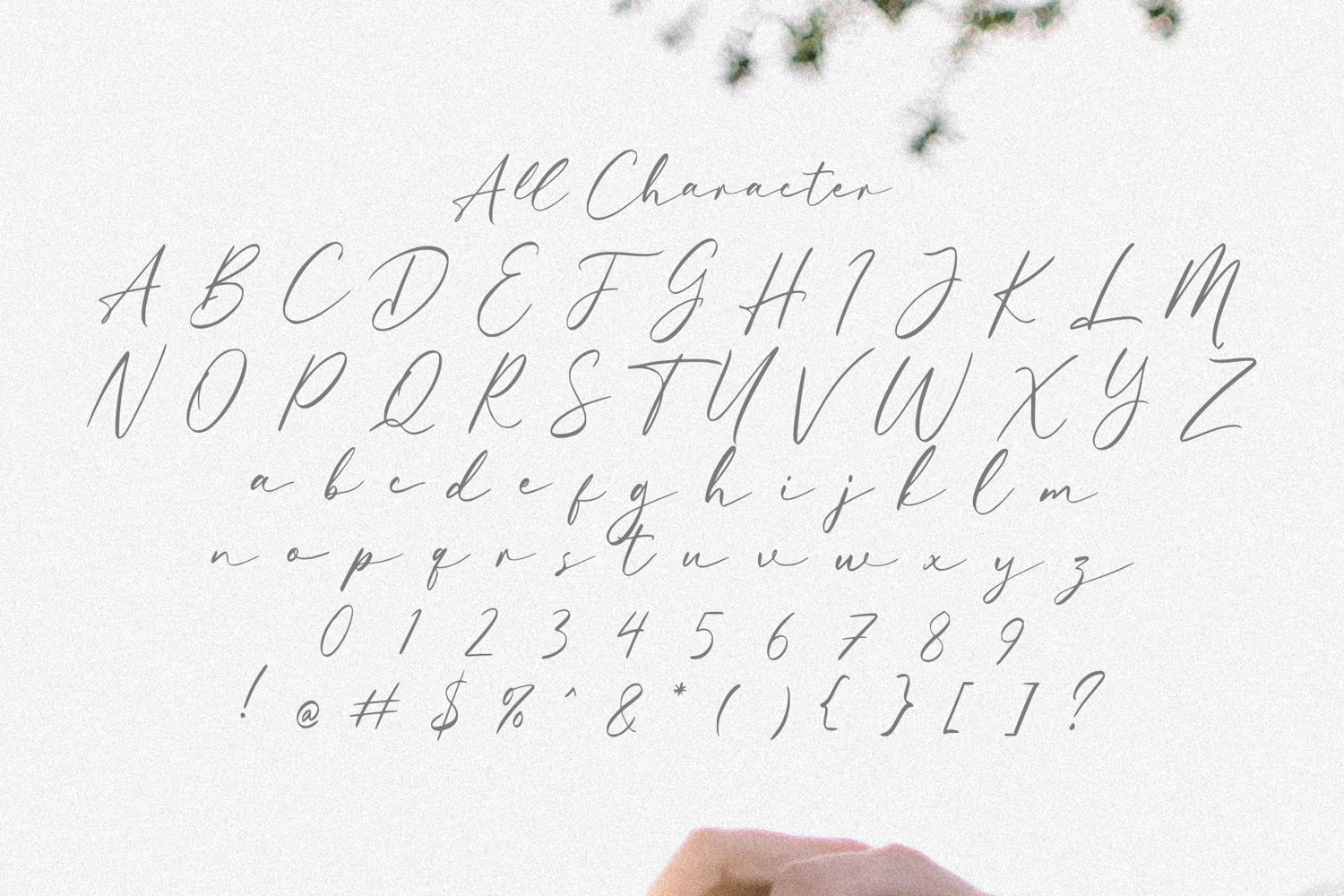
Scarlett Script is modern script that perfect for variety of projects, for example: branding, logos, fashion, clothing, letters, stationery, weddings invitations, greeting cards, posters, business cards, quotes, blog headers etc.